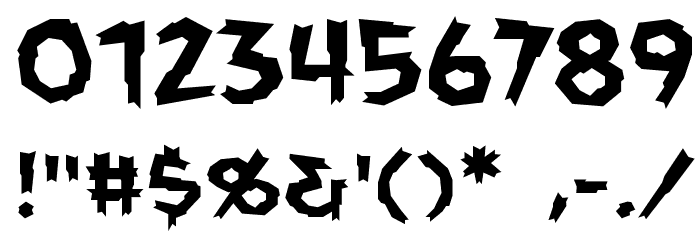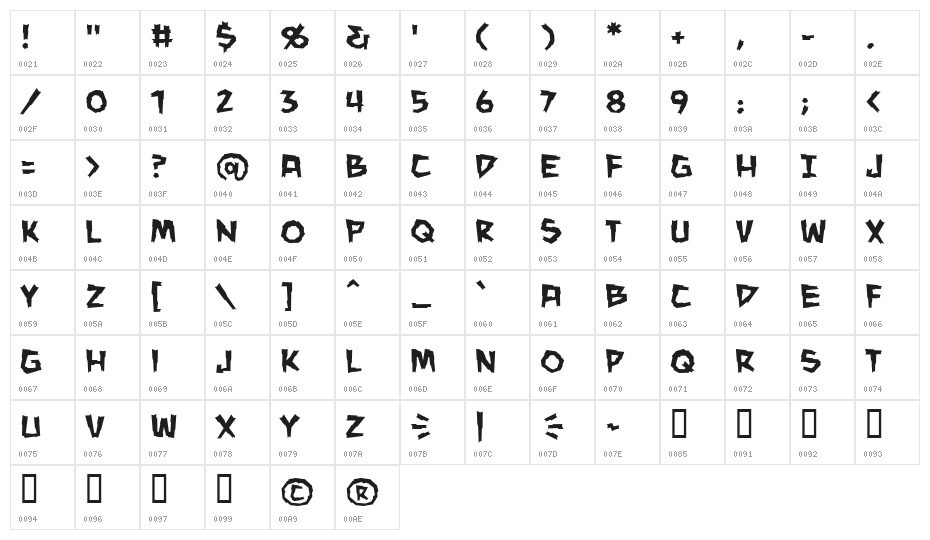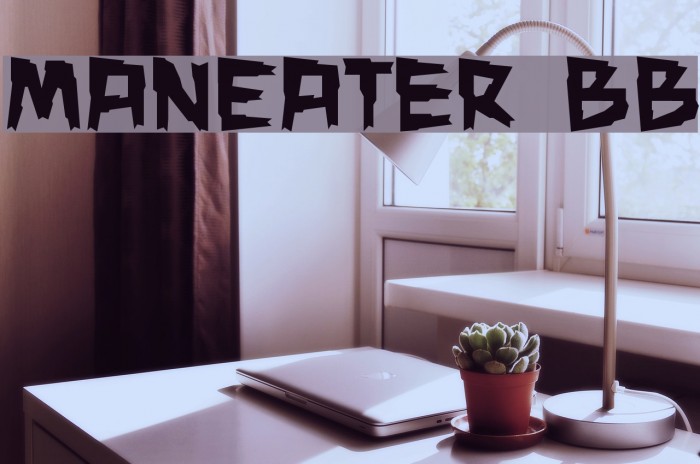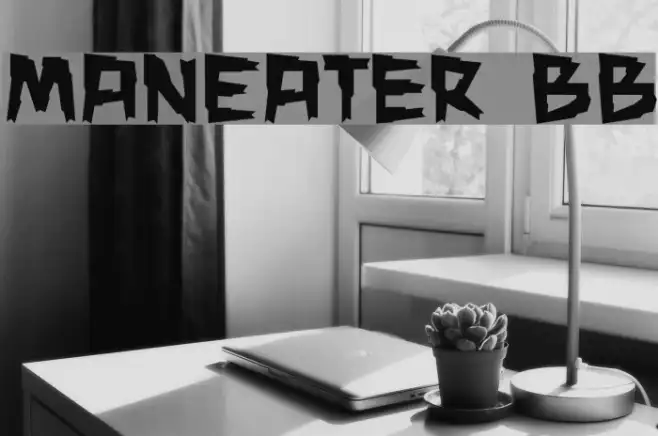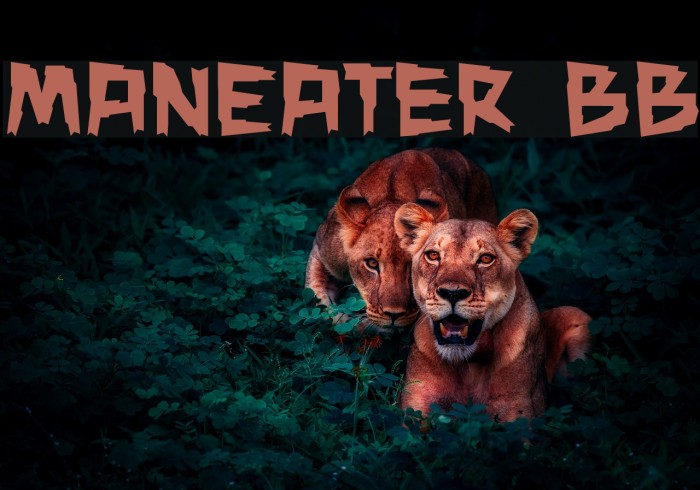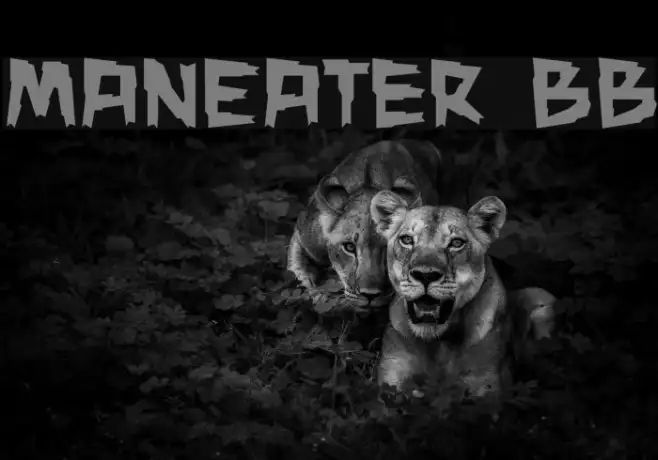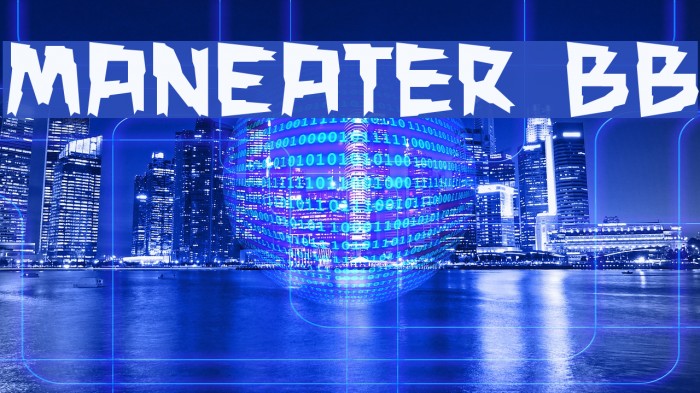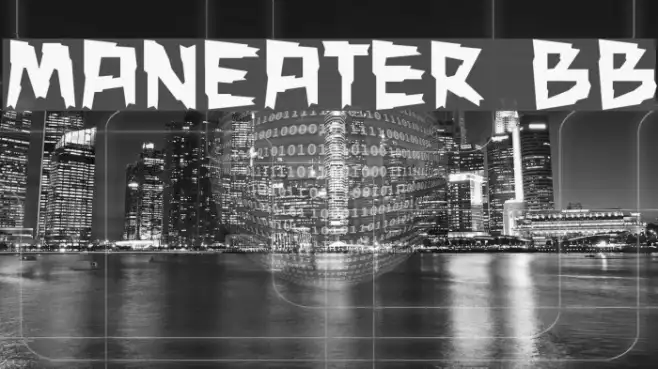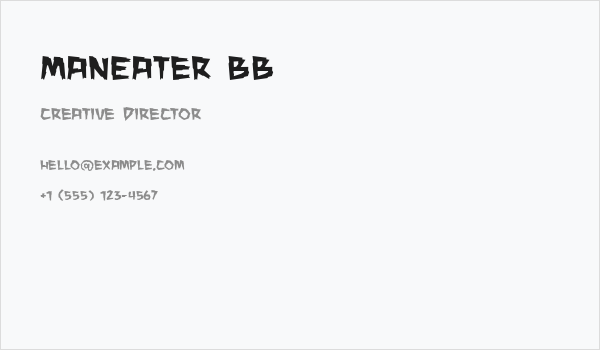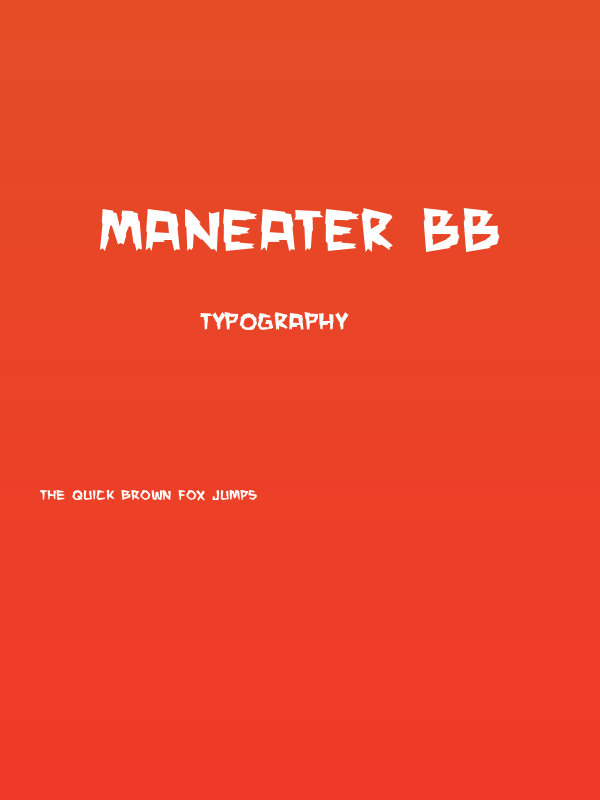
ManEater BB Font
ManEater BB Description
This font features a bold and jagged design, reminiscent of a hand-cut or torn paper style. The characters have an irregular and edgy appearance, with sharp angles and varying stroke widths that create a dynamic and aggressive look. The uppercase and lowercase letters maintain a consistent style, while the numbers and special characters follow the same rugged aesthetic. This font is highly decorative, making it ideal for attention-grabbing designs. Its unique style is perfect for projects that require a bold statement or a touch of rebellious flair.
| Proposed Projects | Ideal for posters, album covers, video game titles, and any design needing a bold, rebellious look. |